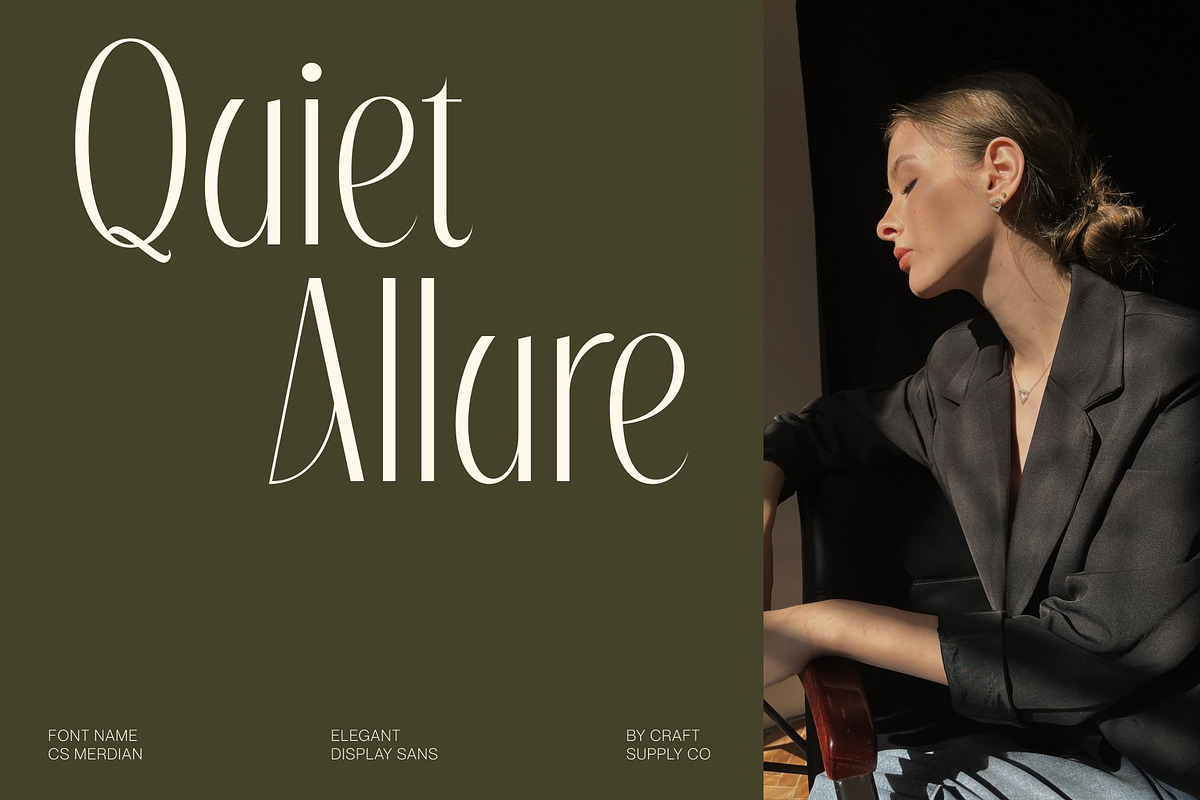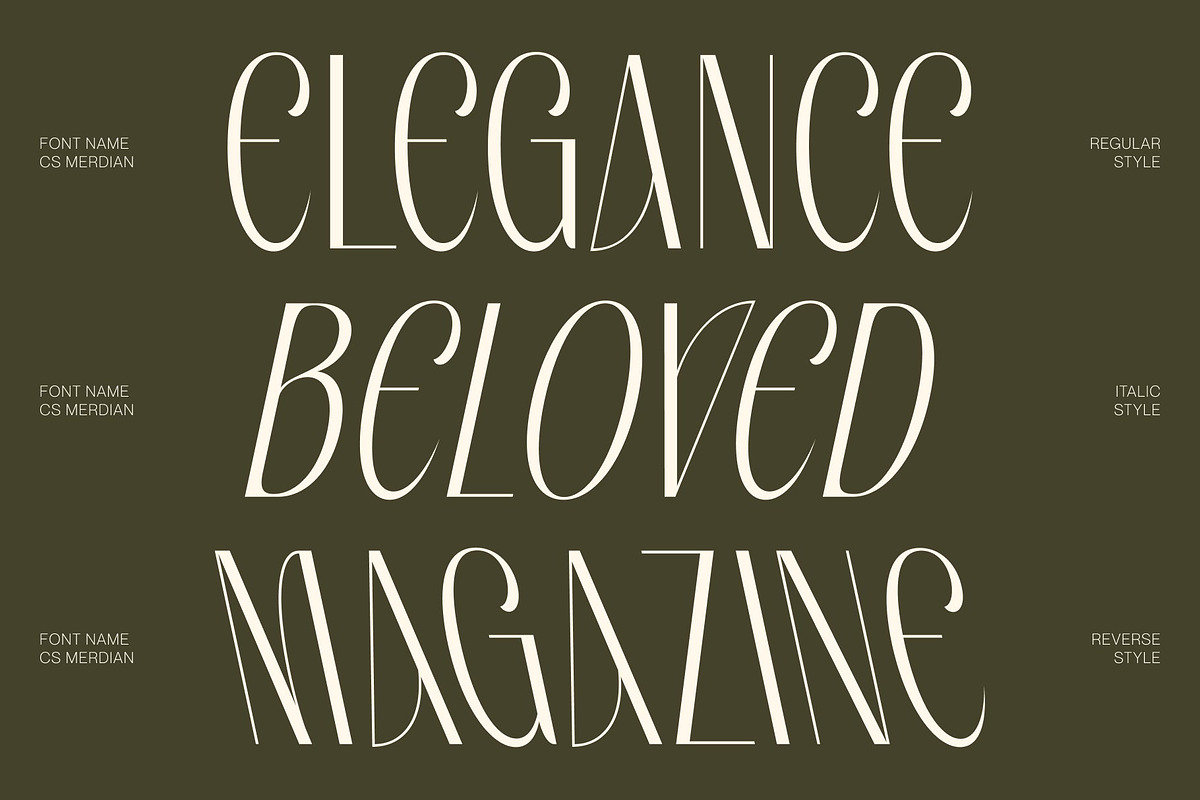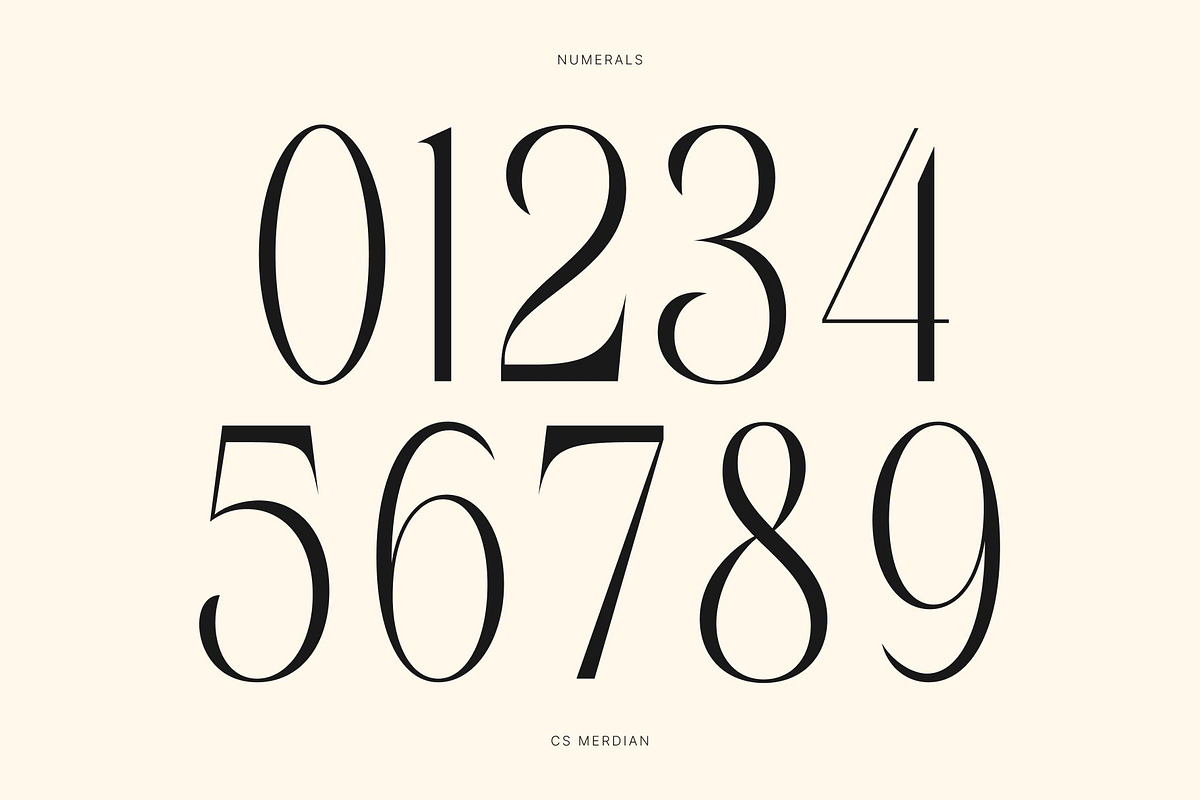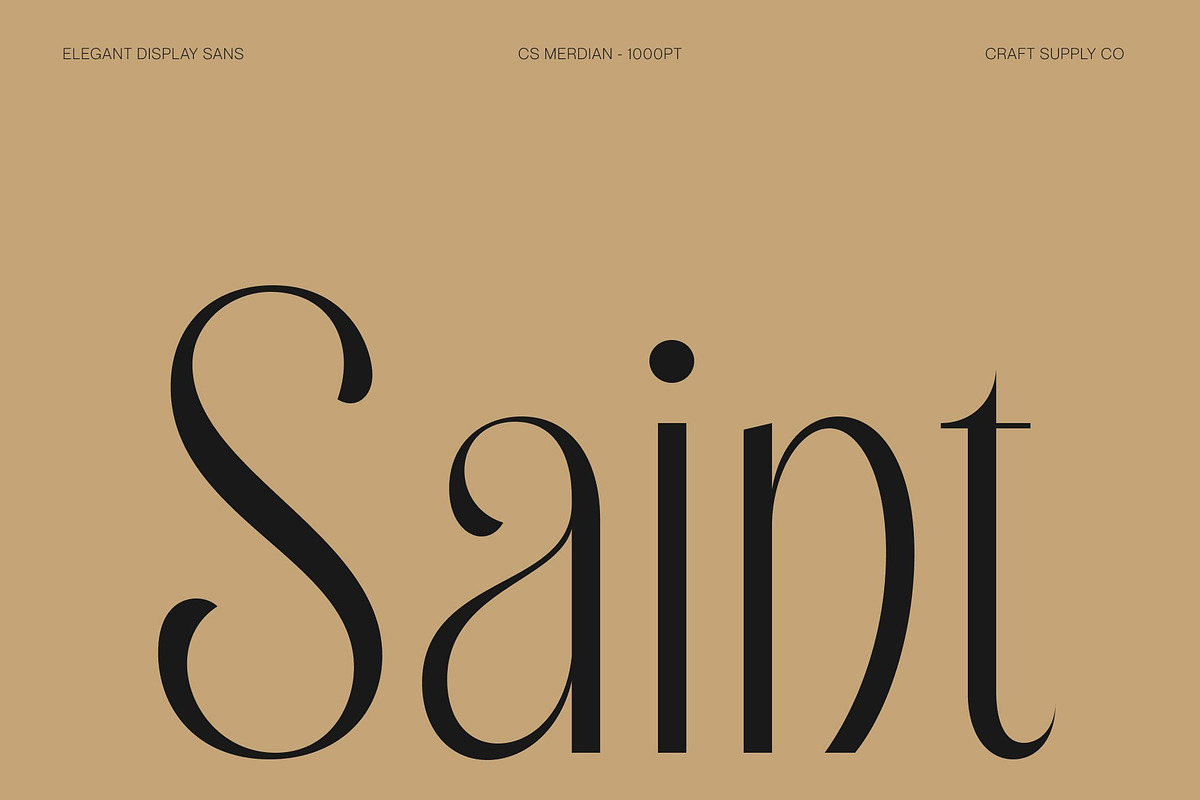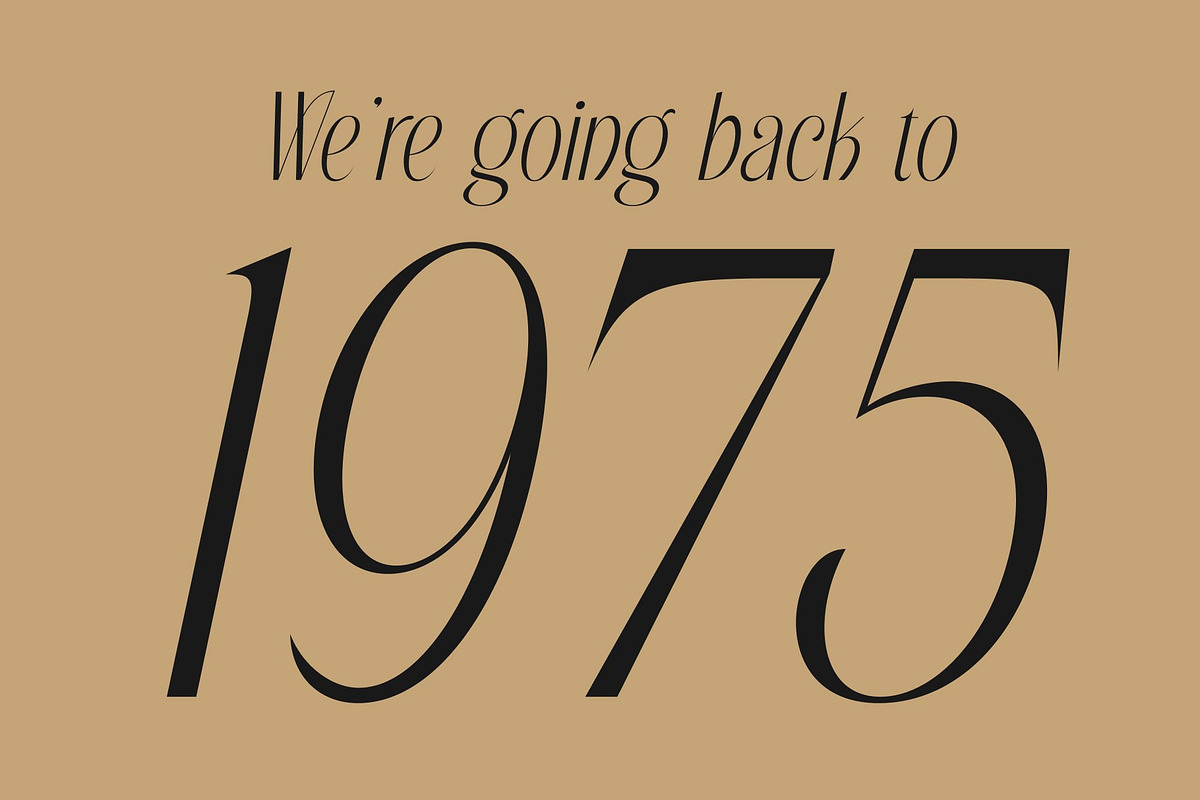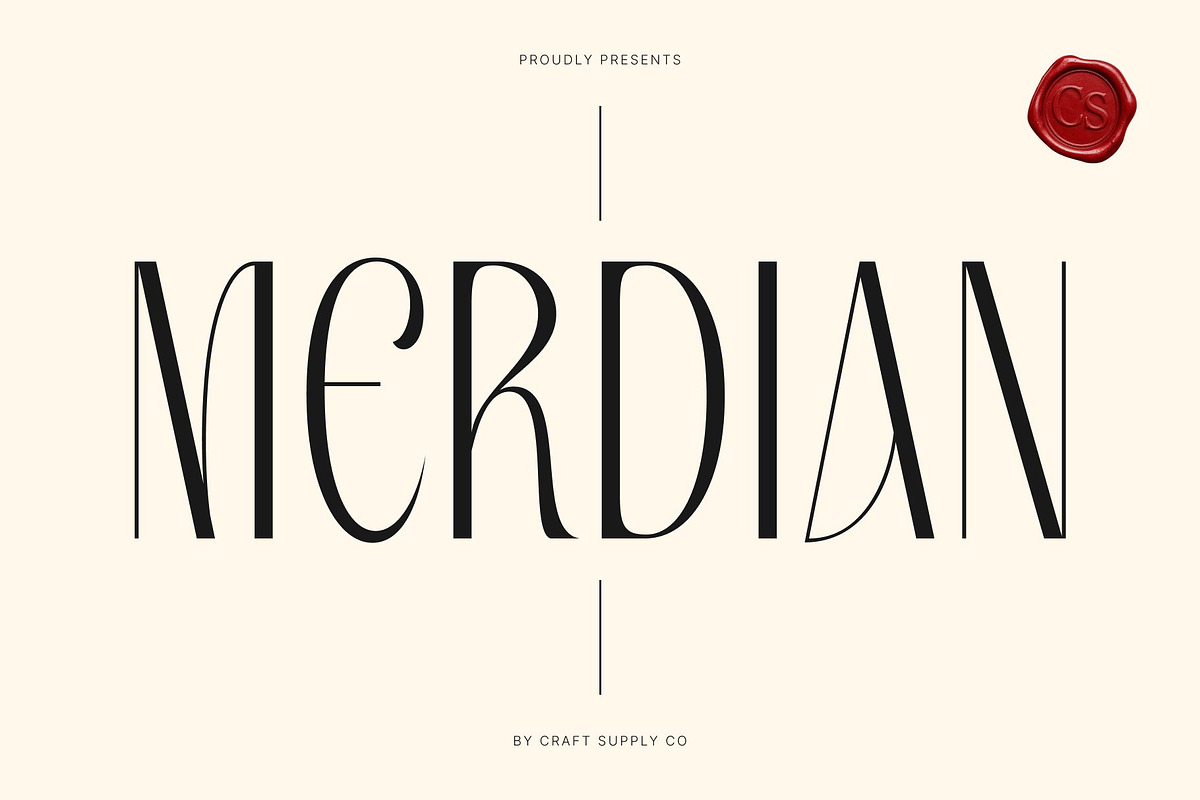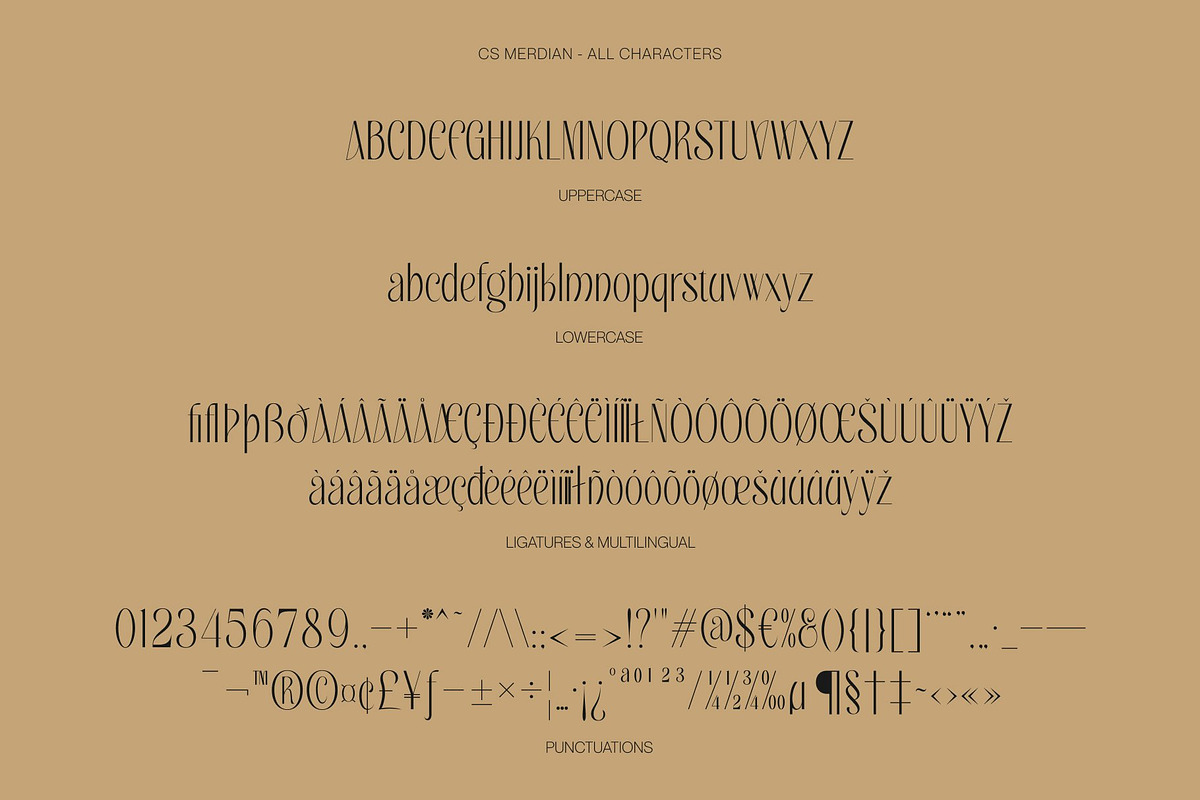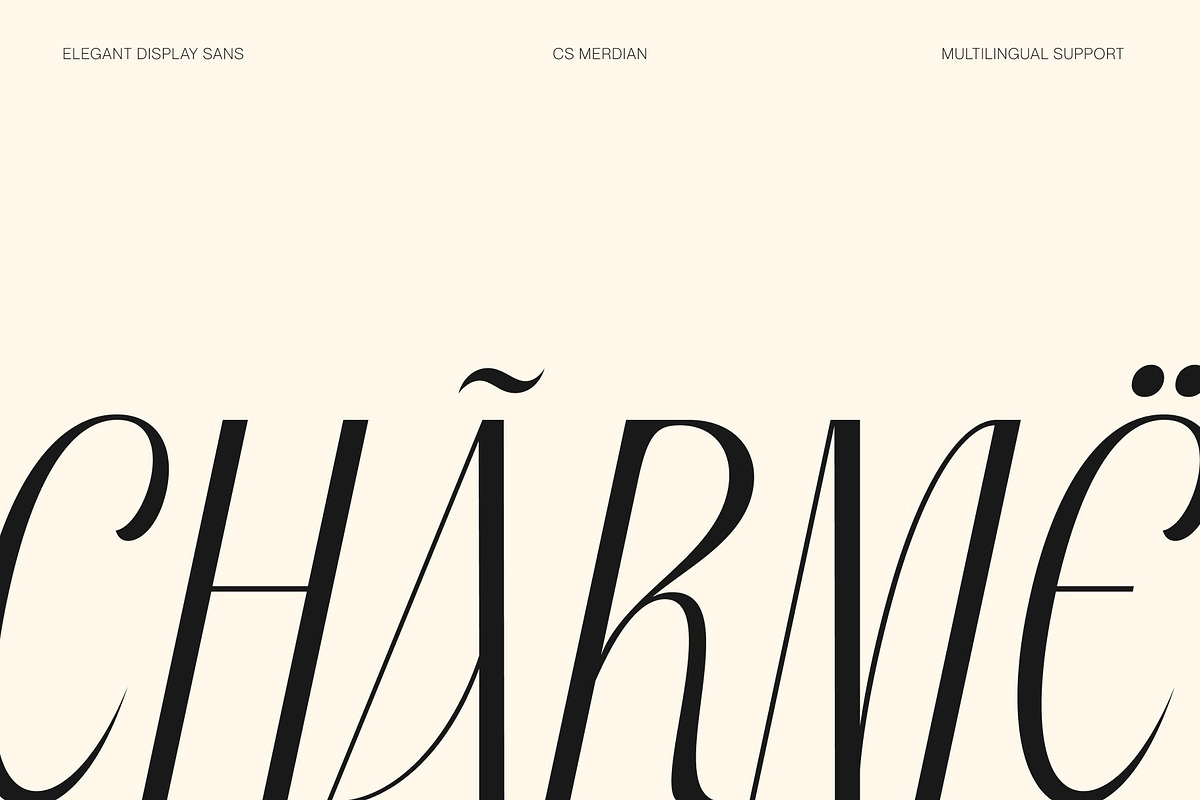
CS Merdian – Elegant Sans Serif
CS Merdian – Elegant Sans Serif with Elongated Luxury
Elegant Sans Serif with Refined Contemporary Style This is an elegant sans serif font designed to express sophistication through graceful proportions and modern simplicity. With its refined curves and carefully crafted structure, this typeface creates a polished visual identity that feels luxurious, stylish, and contemporary. It is crafted for designers who seek typography that communicates elegance with clarity and confidence.
Elongated Details with Distinctive Elegance The defining feature of this font lies in its elongated letterforms that add a sense of height, refinement, and visual sophistication. These extended proportions create a graceful rhythm across text, enhancing the font’s luxurious appearance while maintaining excellent readability. The result is typography that feels poised, fashionable, and highly memorable.
Smooth Curves with Premium Appeal This font combines soft curves with clean geometric precision, creating a harmonious balance between modern minimalism and high-end elegance. Its sleek construction allows it to adapt beautifully across both digital and print media, delivering a refined aesthetic that feels timeless yet contemporary.
Perfect for Luxury Design, Editorials, and Branding From luxury branding and editorial layouts to fashion campaigns and premium packaging, this font provides a versatile typographic solution. Its combination of elongated elegance, refined curves, and modern sophistication ensures your designs feel exclusive, polished, and visually captivating.